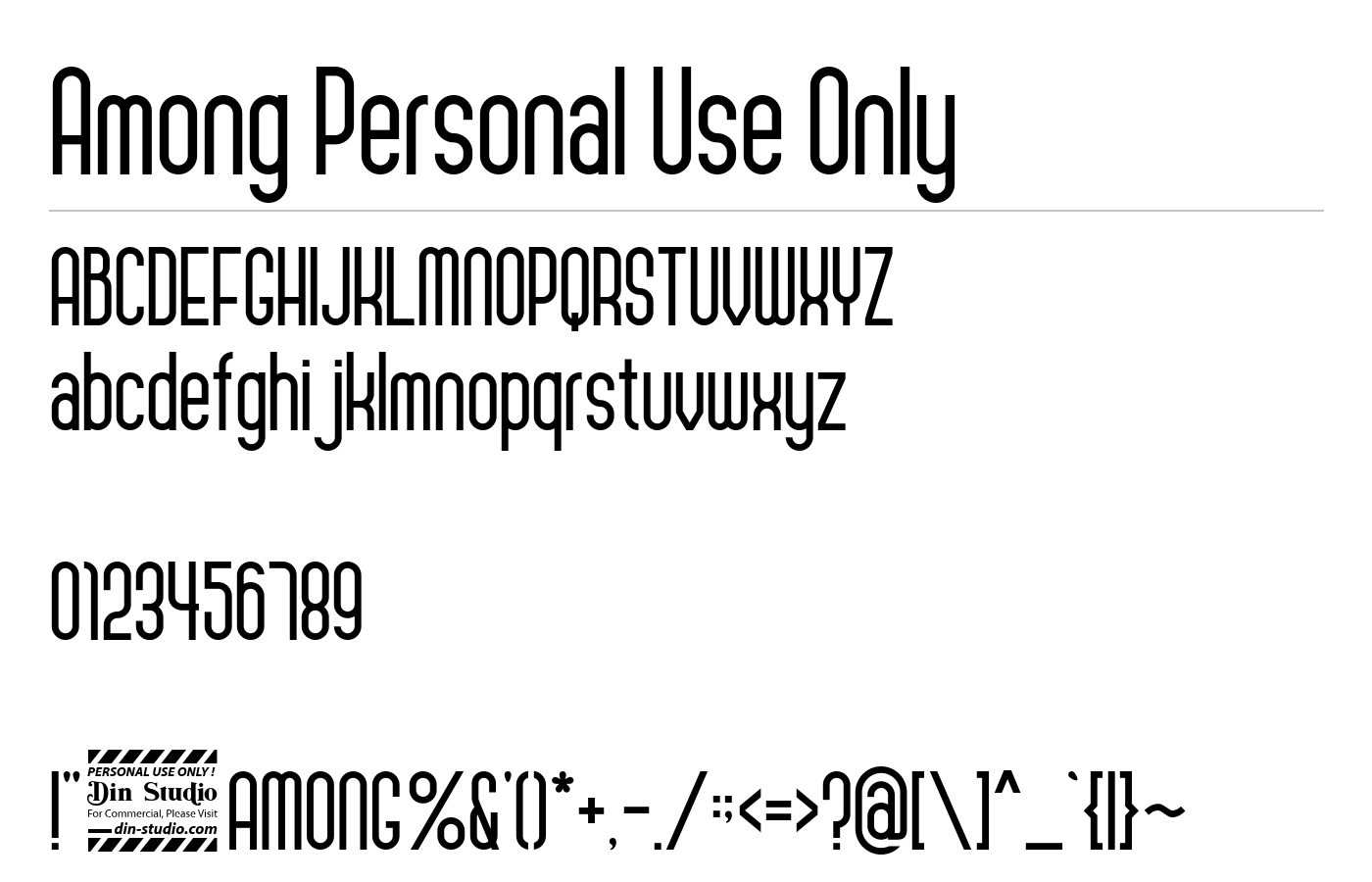
Among Personal Use Only is a narrow, tall sans serif font with a modern, clean appearance featuring consistent stroke weight and rounded terminals. Its condensed proportions and high x-height give it a distinctive, sleek look that works well for contemporary branding, headlines, and digital projects where space-saving yet readable type is essential. This font conveys a stylish, urban feel, ideal for fashion, technology, or creative industries seeking a minimalist yet striking presence.
Among Personal Use Only Font
About Among Personal Use Only Font